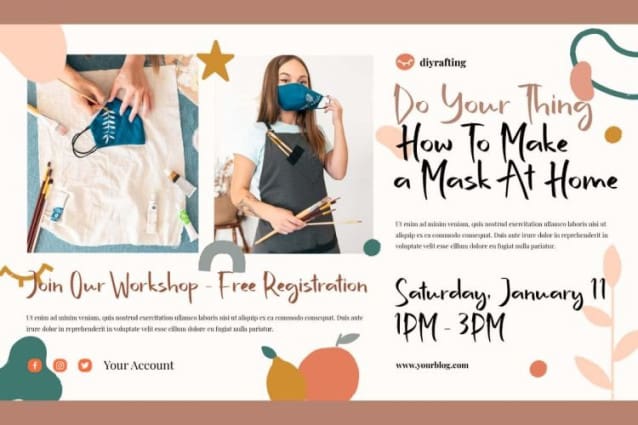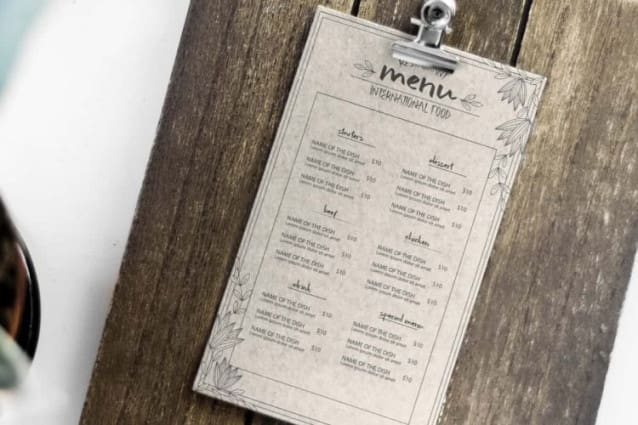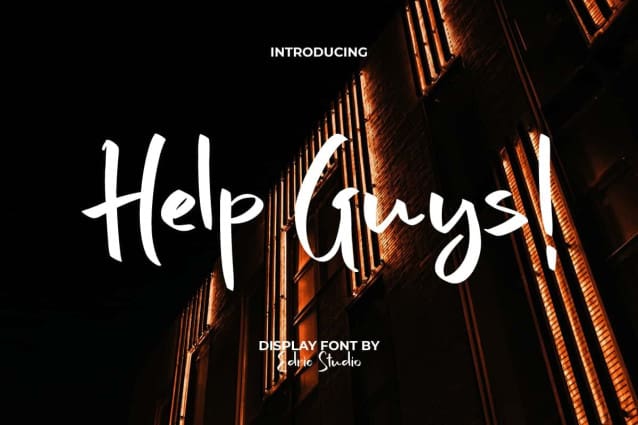
Help Guys Font
Help Guys Font is a casual yet charming calligraphic font in a modern marker style. Perfectly designed using a special flat brush to present a dynamic freestyle style. This font is the perfect choice to add a twist to your creative design ideas, including apps, brochure, clothing, headers, labels, menu flyers, mockup design, posters, product packaging, quotes, stickers, titles, watermarks, and more.
Help Guys Font includes a complete set of Uppercase and Lowercase Letters, Numbers, Punctuation, and Symbols. This typeface embraces the energy of creative imagery and takes you into the world of expressive fonts. It’s certainly versatile across print and digital media, such as for clothing brands, fashion, furniture, handicrafts, homeware, painting art, pottery, printing, publishing, restaurants, and anything else.